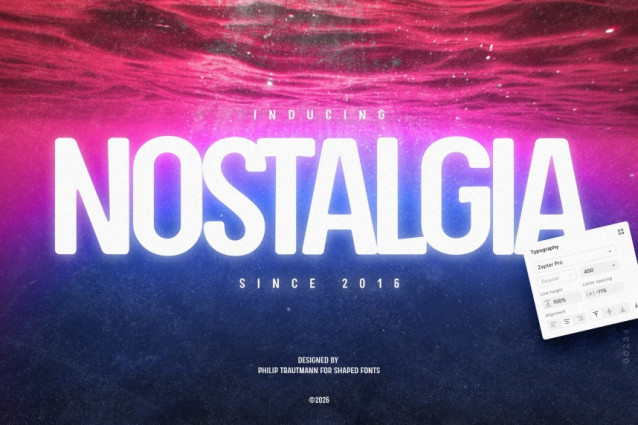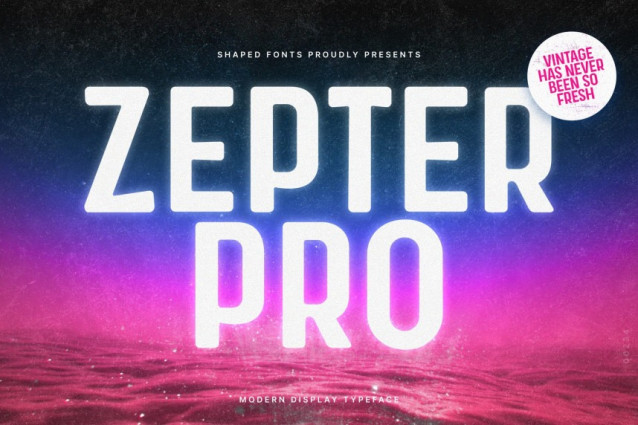
Zepter Pro Font
Zepter Pro Font is a modern display typeface that blends vintage character with contemporary clarity. Playful yet confident, it’s designed to perform across logos, headlines, and bold brand moments. Carefully balanced letterforms ensure strong impact at large sizes while remaining clear and readable when scaled down. A timeless typeface built to outlast trends.